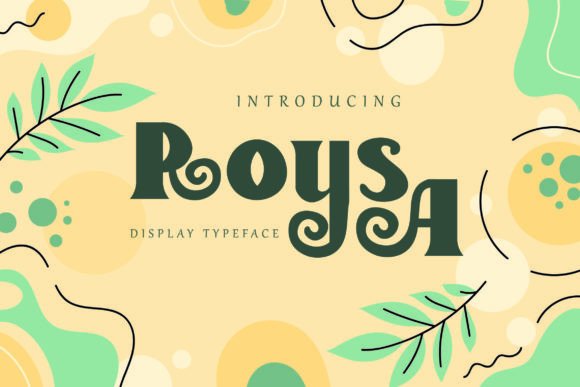
Step into the realm of timeless elegance with Roysa Font, a captivating serif masterpiece crafted with a touch of modernity. Its meticulously designed characters exude a uniquely friendly style, effortlessly adding a personal touch to your creative endeavors. Imagine your invitations radiating warmth, greeting cards brimming with charm, and branding materials that speak volumes about your dedication to excellence.
With Roysa Font, the possibilities are truly endless. Let your business cards make a striking first impression, your quotes resonate with heartfelt emotions, and your posters command attention with their refined aesthetic. Whether you're a seasoned designer or just starting your creative journey, Roysa Font is your trusted companion, guiding you towards design brilliance.
Roysa Font's versatility knows no bounds. Its graceful curves and sharp edges harmonize seamlessly, creating a visual symphony that complements any project. Whether you're crafting elegant wedding invitations, designing eye-catching logos, or creating social media graphics that captivate your audience, Roysa Font is your secret weapon.
Unlock the power of Roysa Font today and elevate your designs to new heights. Experience the joy of effortless creativity as your imagination takes flight, transforming your ideas into stunning realities. Join the ranks of satisfied users who have discovered the magic of Roysa Font, and let your designs leave an unforgettable mark on the world.